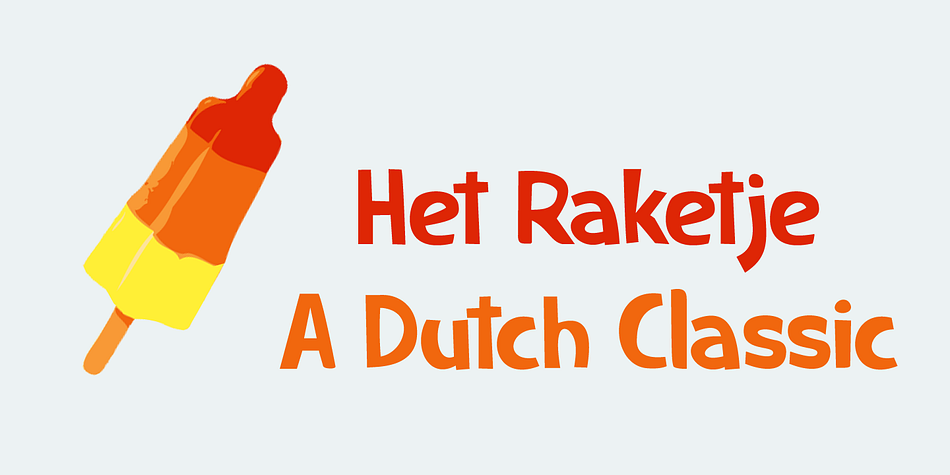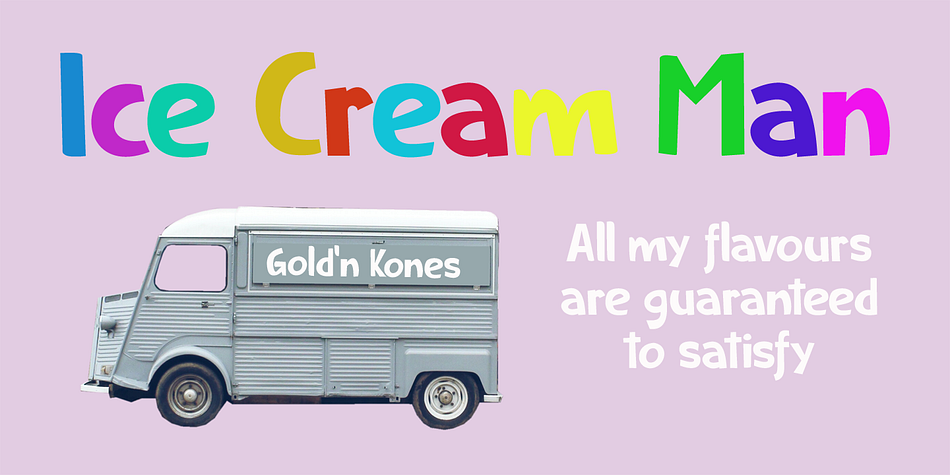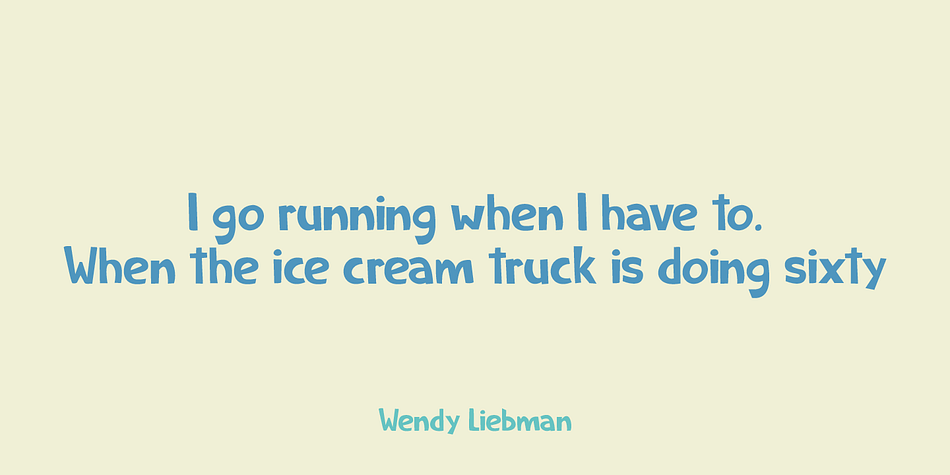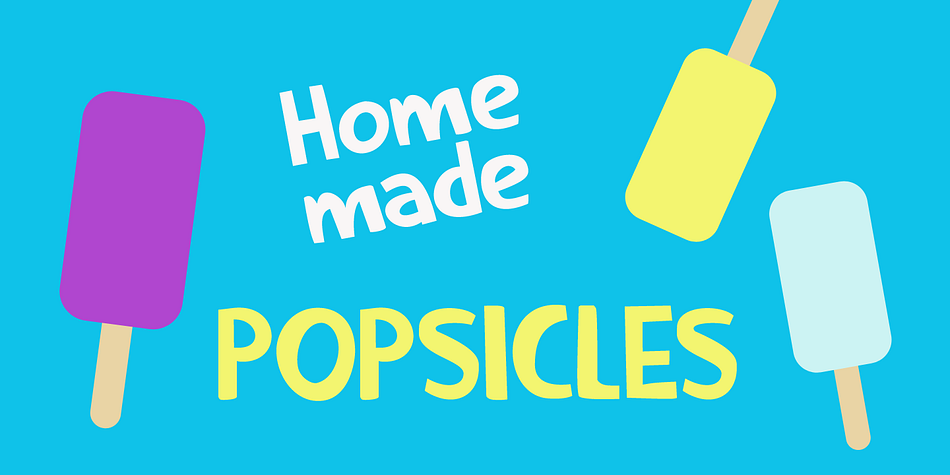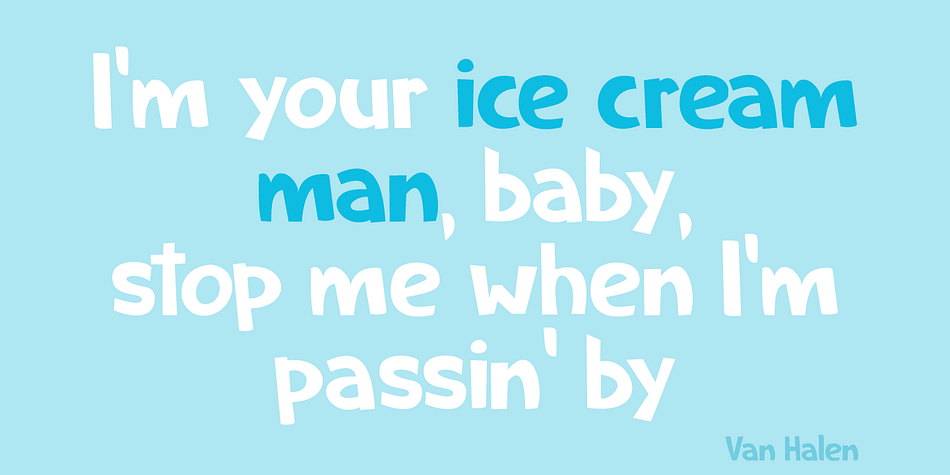
Designed by David Kerkhoff, Ice Cream Man is a comic, display sans and kids font family. This typeface has two styles and was published by Hanoded.
I was listening to an old Van Halen album when I made this font. I named it after one of my favourites: ‘Ice Cream Man’.
Ice Cream Man is a happy, sloppy, wobbly kids font. Use it for your book covers, posters and ice cream packaging!